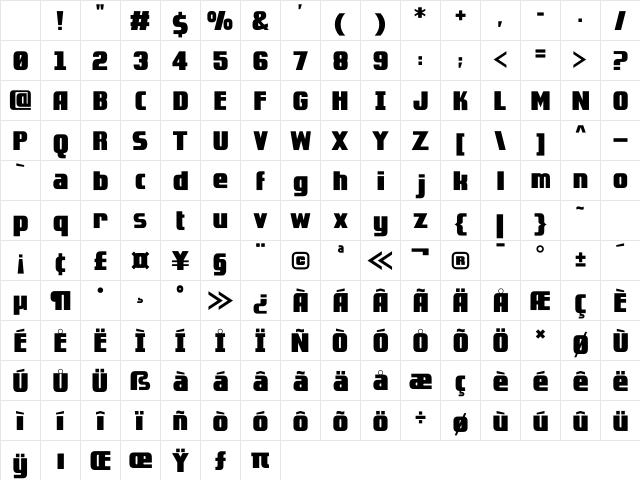
Complete Golden Dragon Solid glyph index. Displaying only characters natively supported by Golden Dragon Solid font.
Golden Dragon is a composed and adaptable typeface that performs quietly and consistently across a wide range of design contexts.